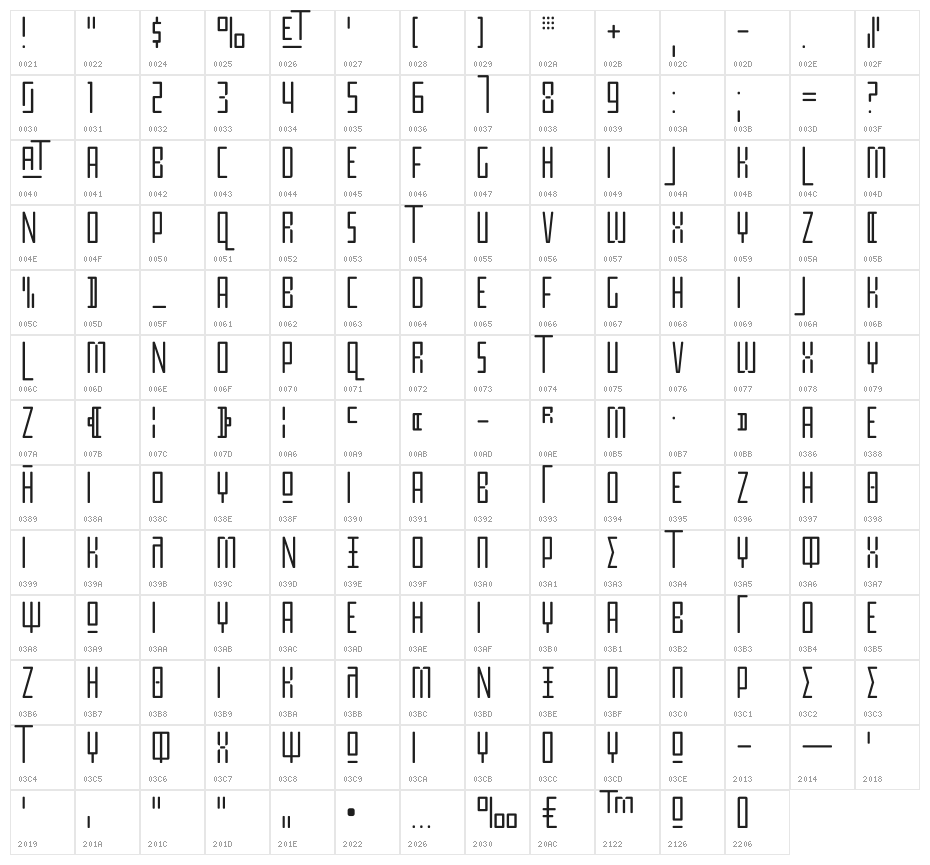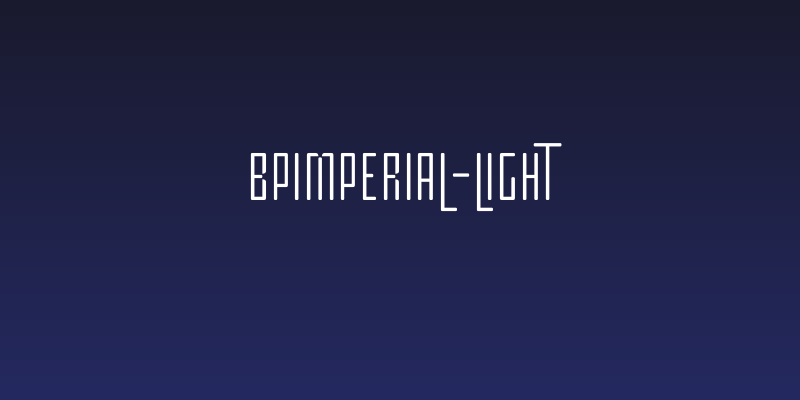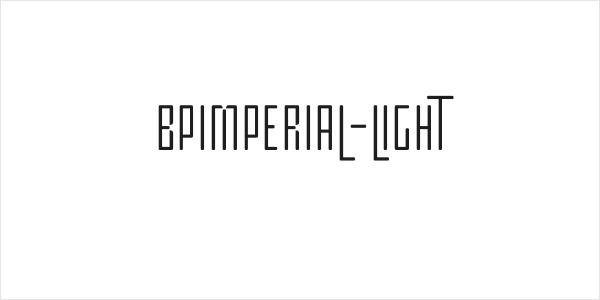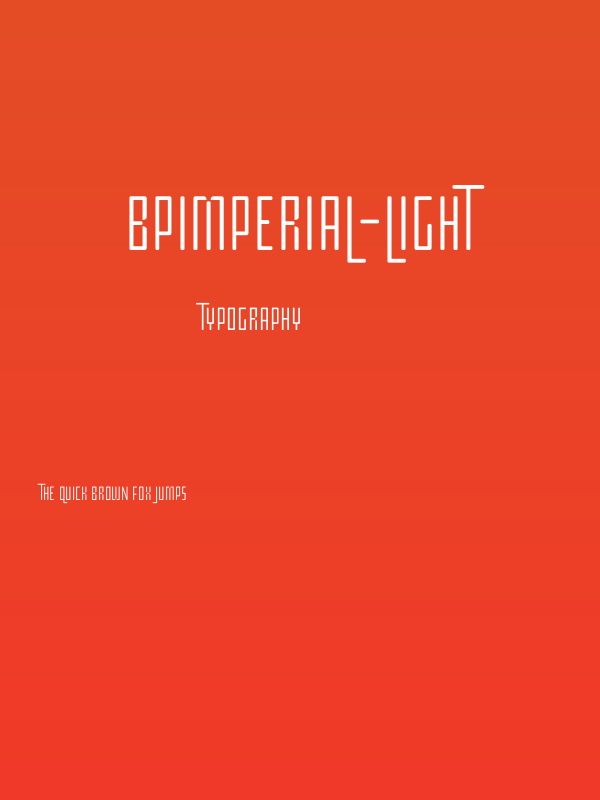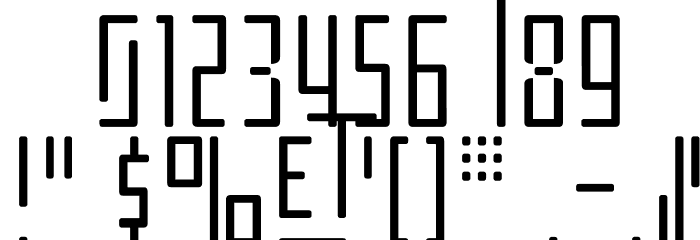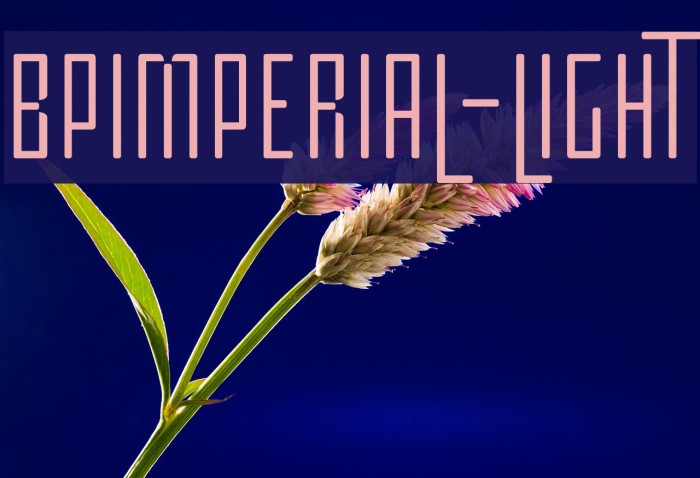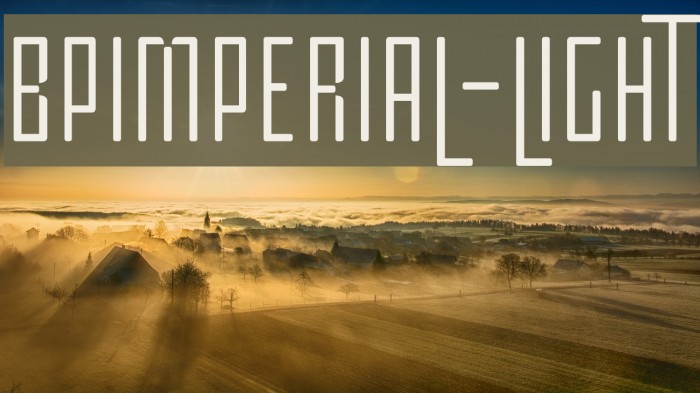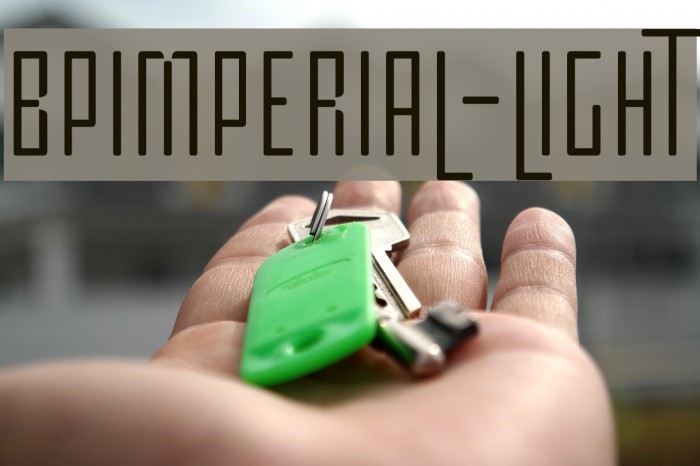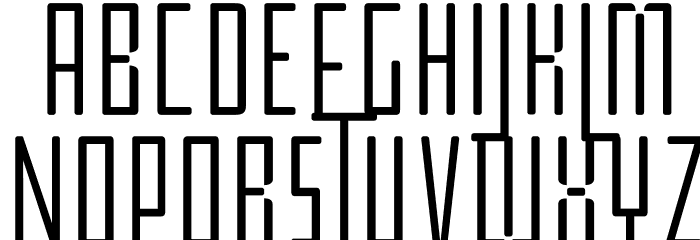
BPimperial-Light Font
BPimperial-Light Description
This font features a modern, geometric design with a distinctively clean and structured appearance. The characters are composed of straight lines and sharp angles, giving it a futuristic and technical feel. The uppercase and lowercase letters maintain a consistent height, contributing to a uniform look. The numerals and special characters follow the same design principles, ensuring a cohesive style throughout. The font's linear and minimalistic nature makes it suitable for projects that require a sleek and contemporary aesthetic.
| Use Case | Headlines, Logos, Digital interfaces |
| Proposed Projects | Ideal for tech branding, modern posters, digital interfaces, and minimalist design projects. |